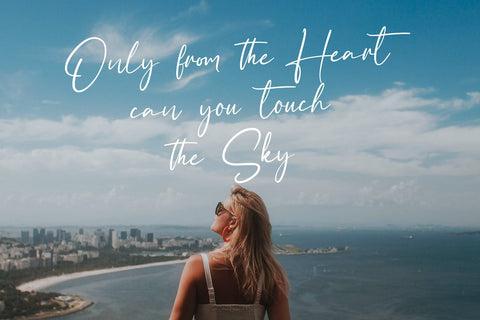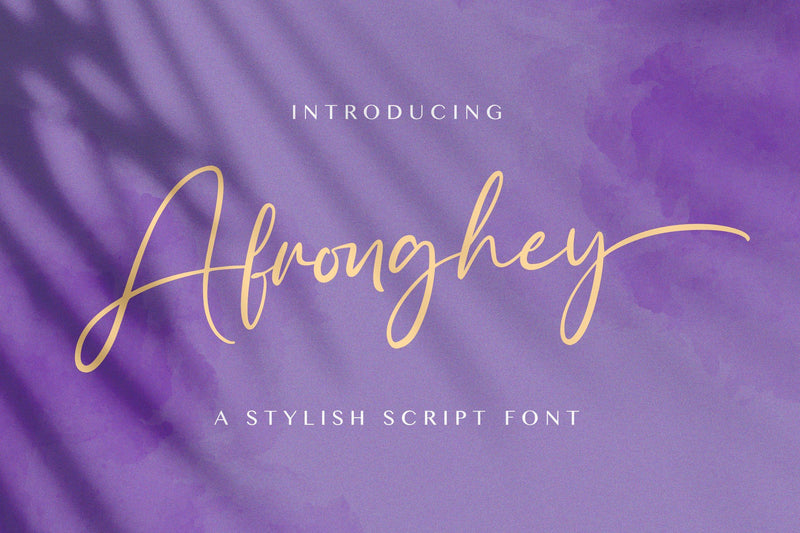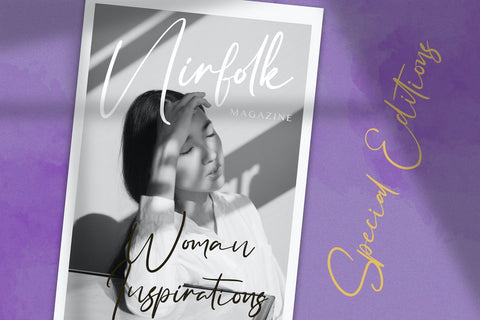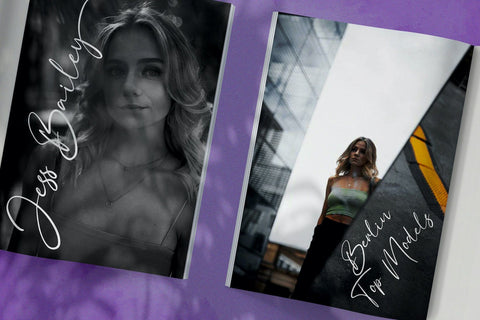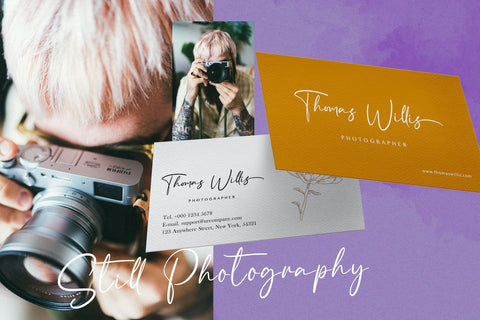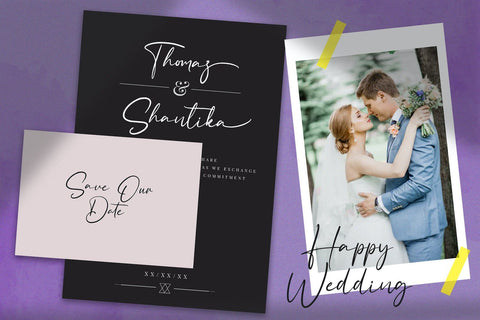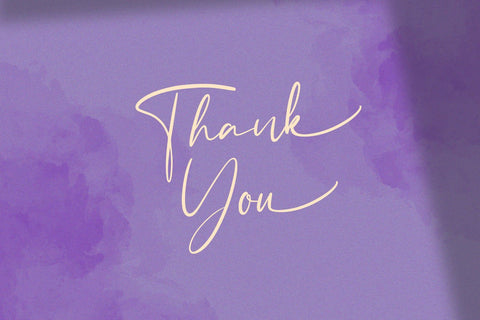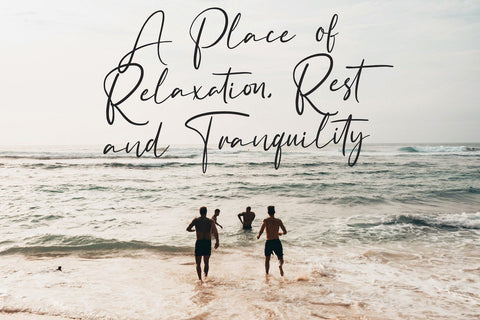
Afronghey - Handwritten Font
Introducing Afronghey - Handwritten Font
Afronghey is a delicate, elegant and flowing handwritten font. It has beautiful and well balanced characters and as a result, it matches a wide pool of designs. Add it to your most creative ideas and notice how it makes them come alive!